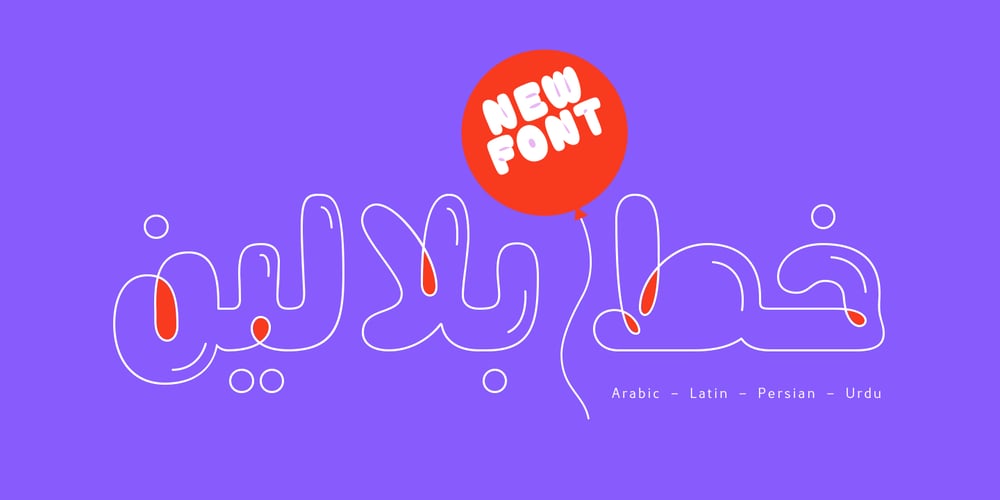
Balaleen
Balaleen font
Balaleen Font Family was designed by Adel Banfeel and published by banfeeltype. Balaleen contains 3 styles and family package options. Balaleen arabic & latin typeface is a cute layered hand-drawn font designed by Adel Banfeel, Inspired by balloons effects, this font is easy to read, and easy to play with 5 different styles, line, solid with effect, line with effect or mix all styles.To do so, you can simply superimpose them with a compatible software like Photoshop, then choose a color for each, making your works charming and unique.This font, finely designed for cards, book titles, headlines or any artworks.